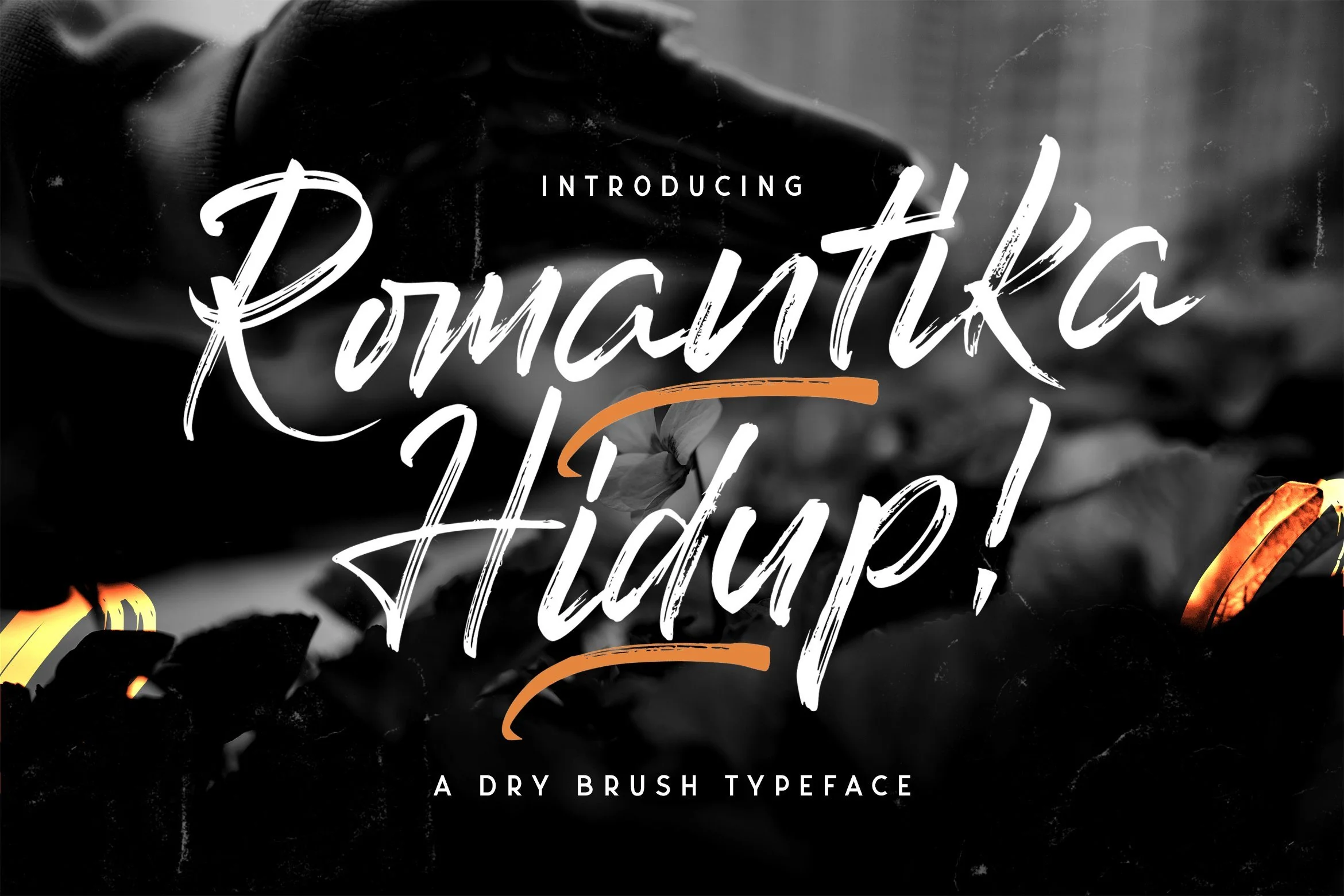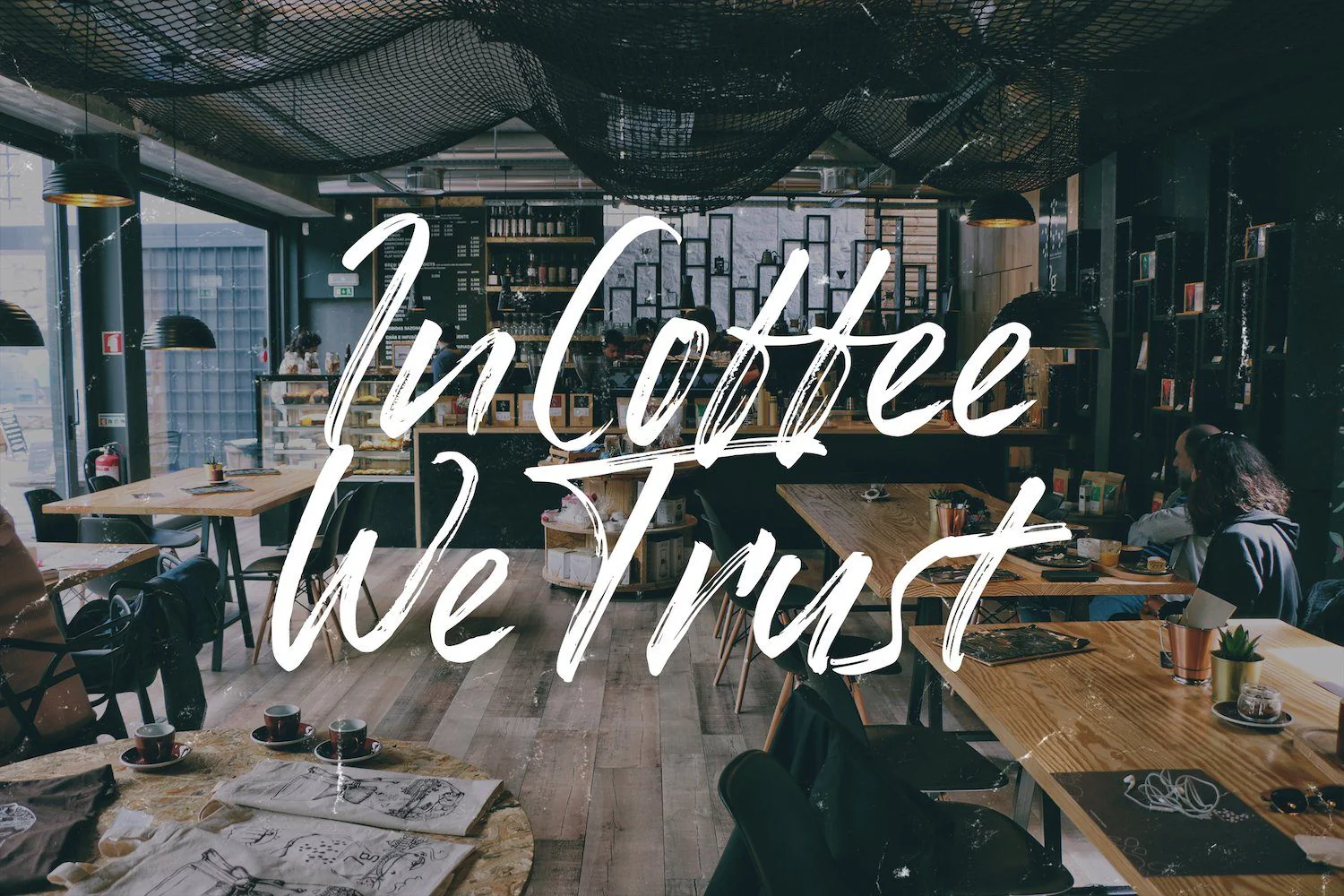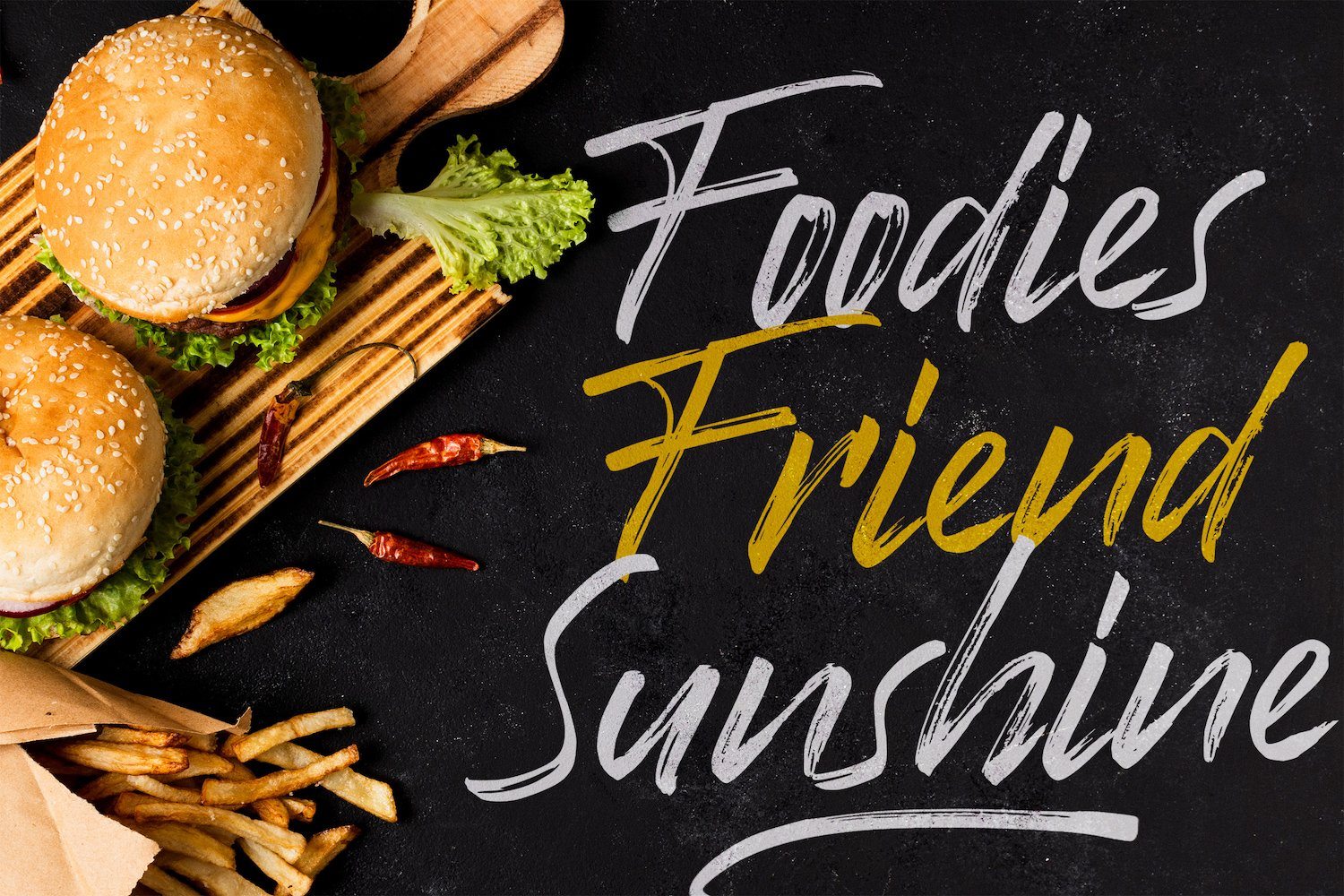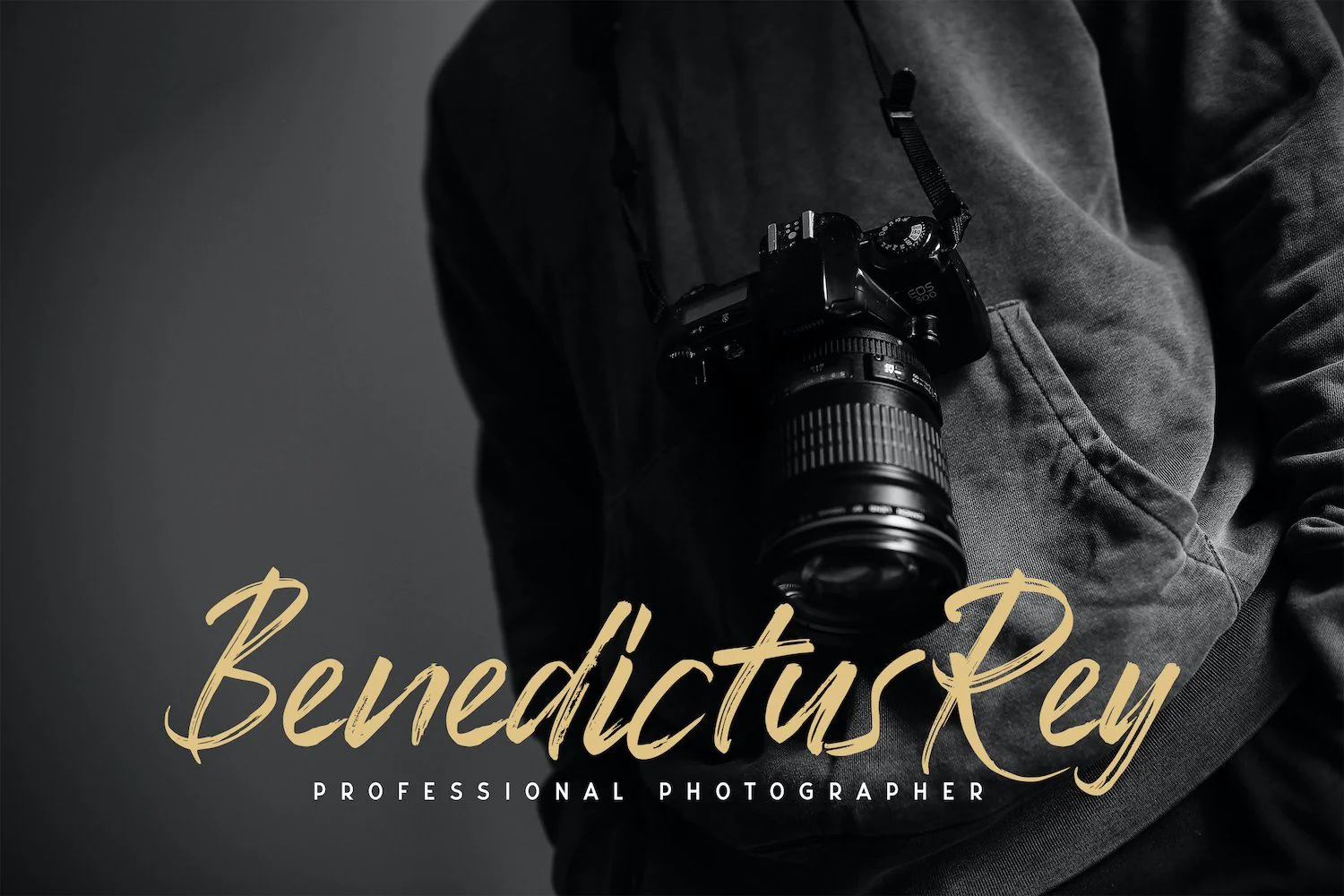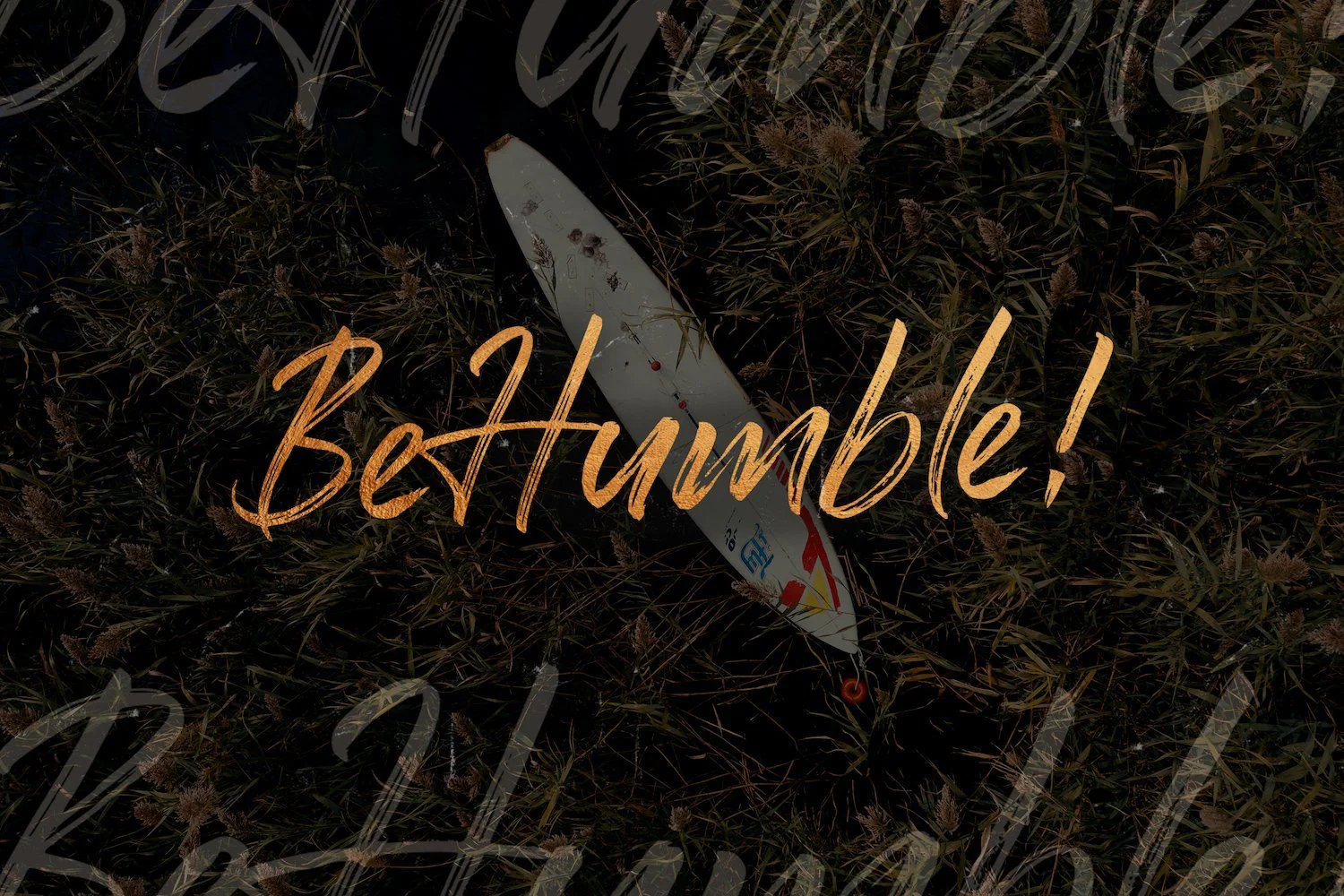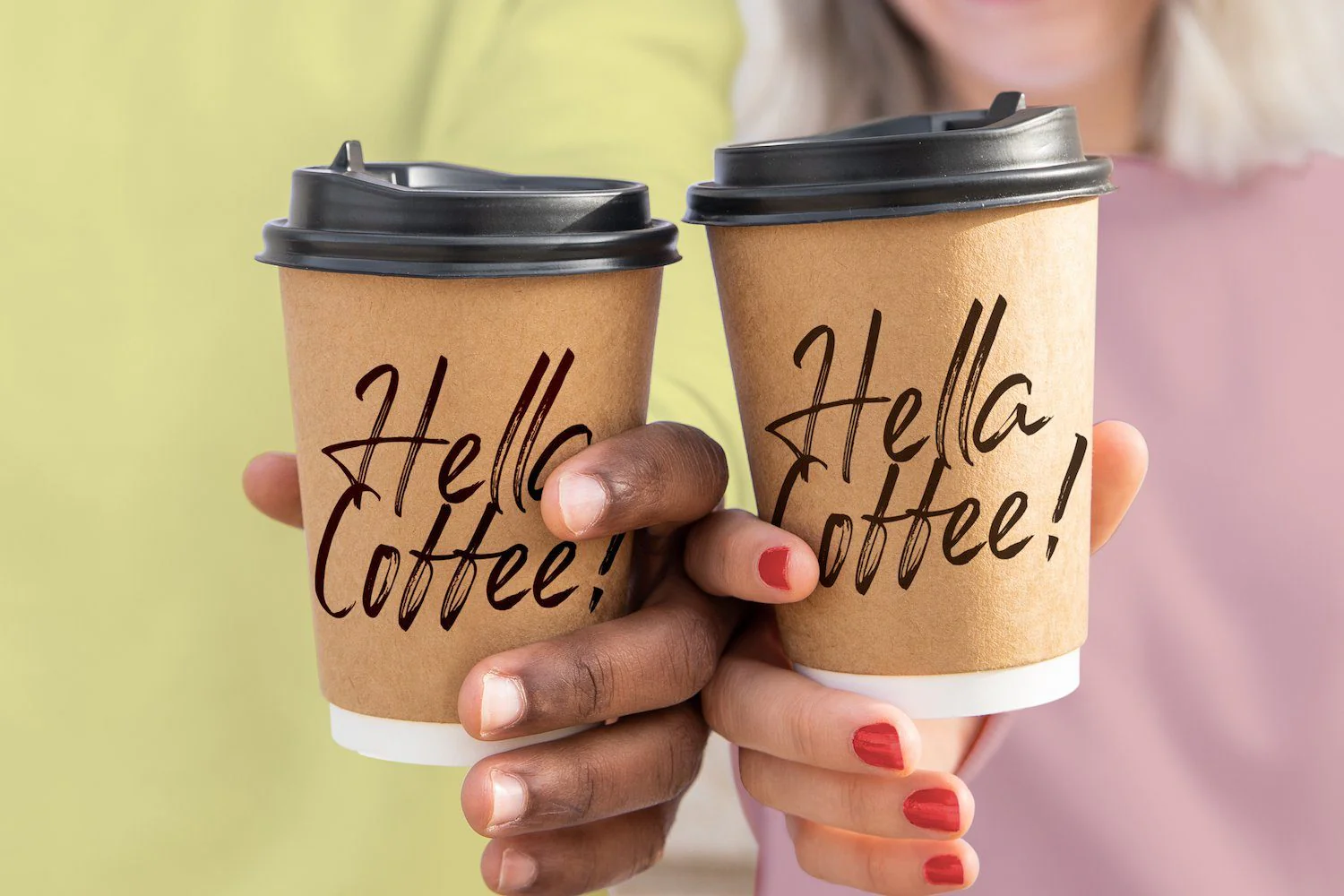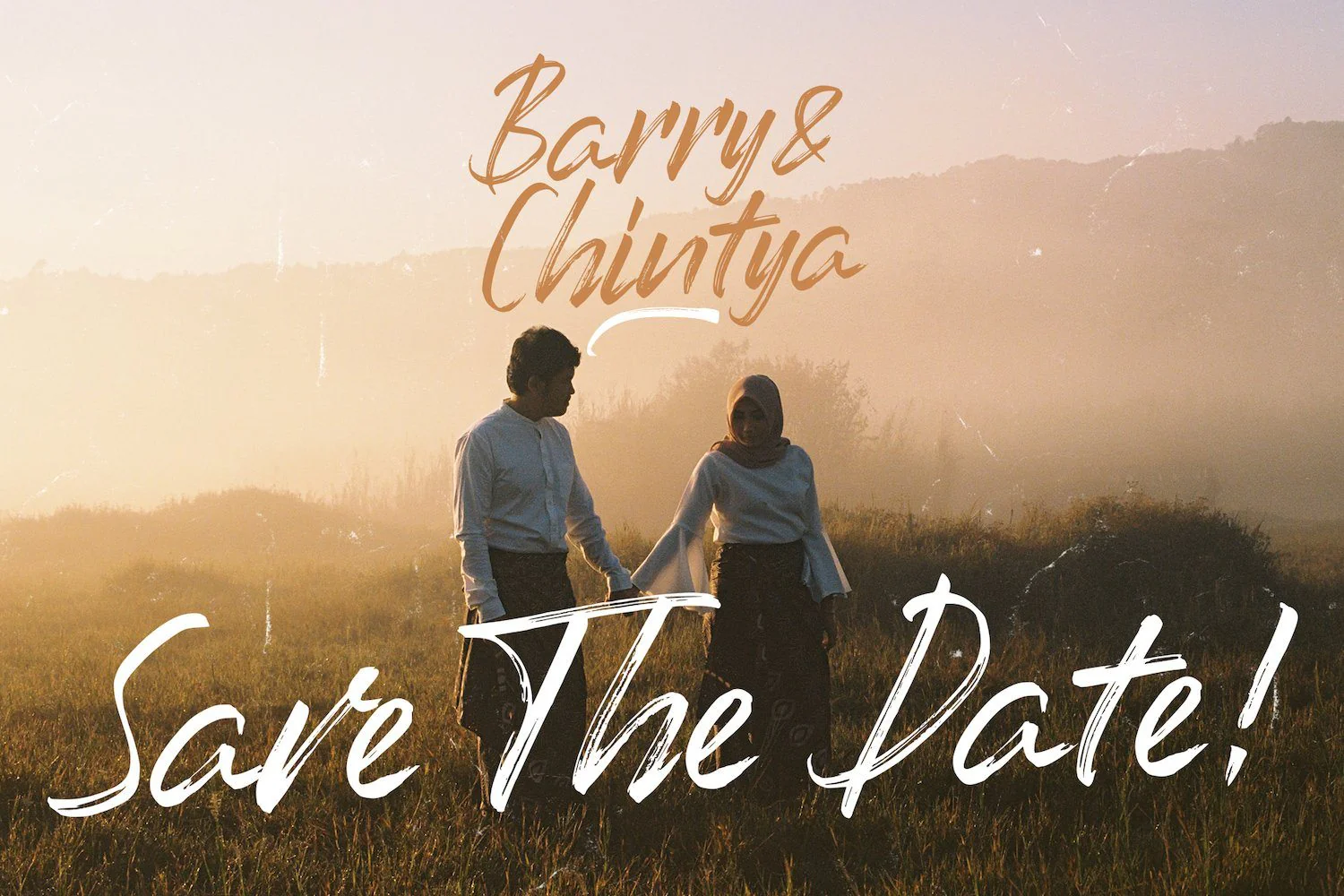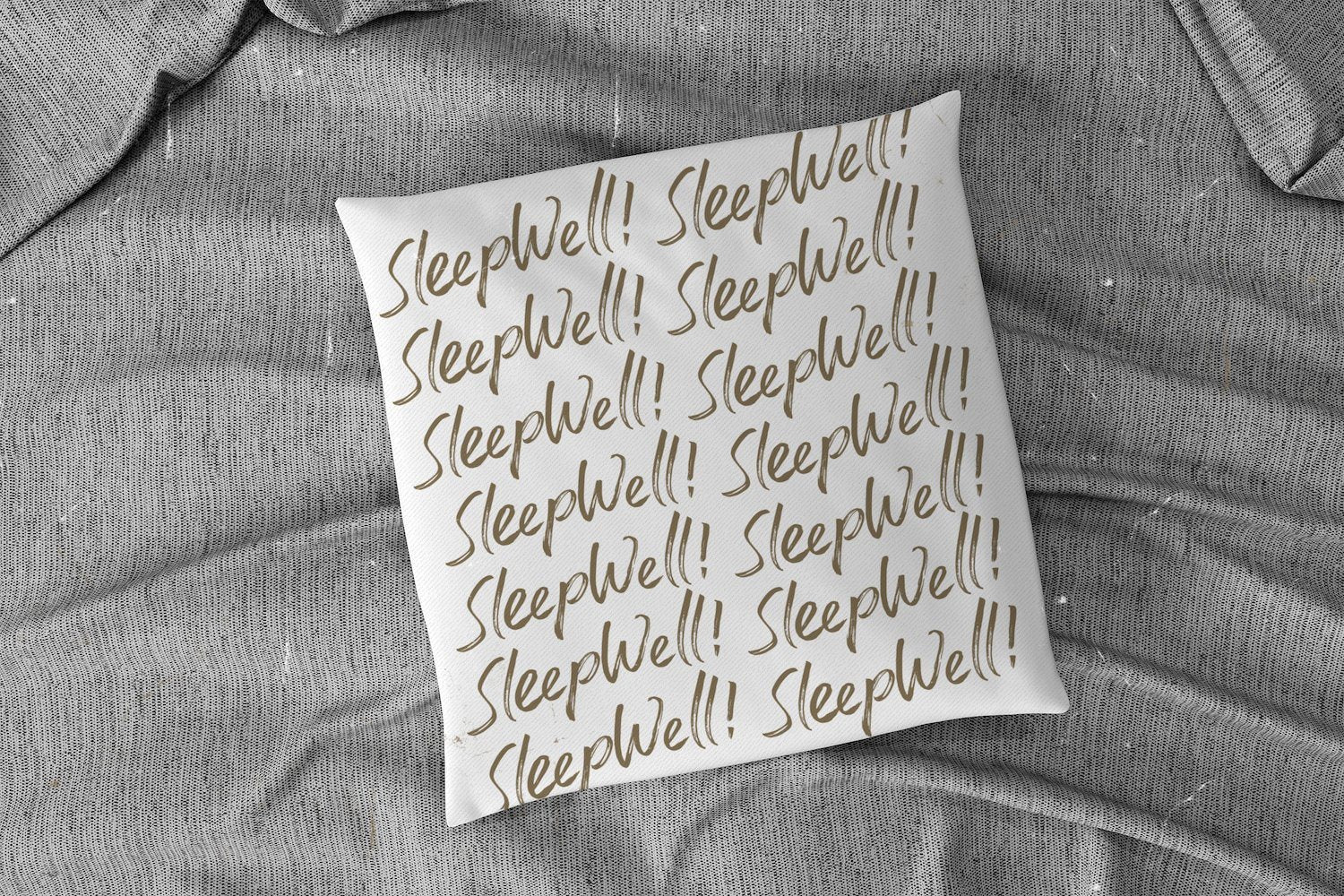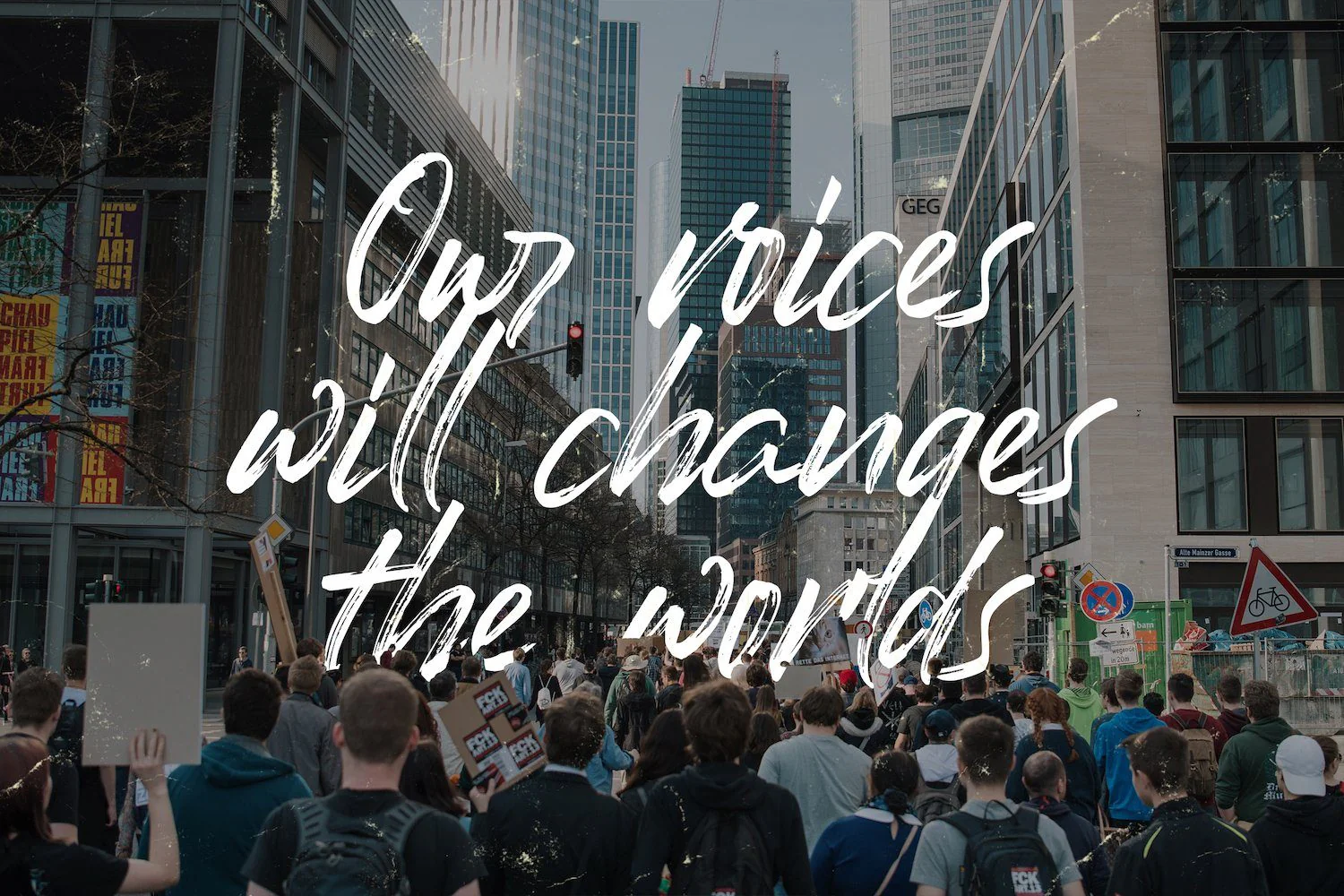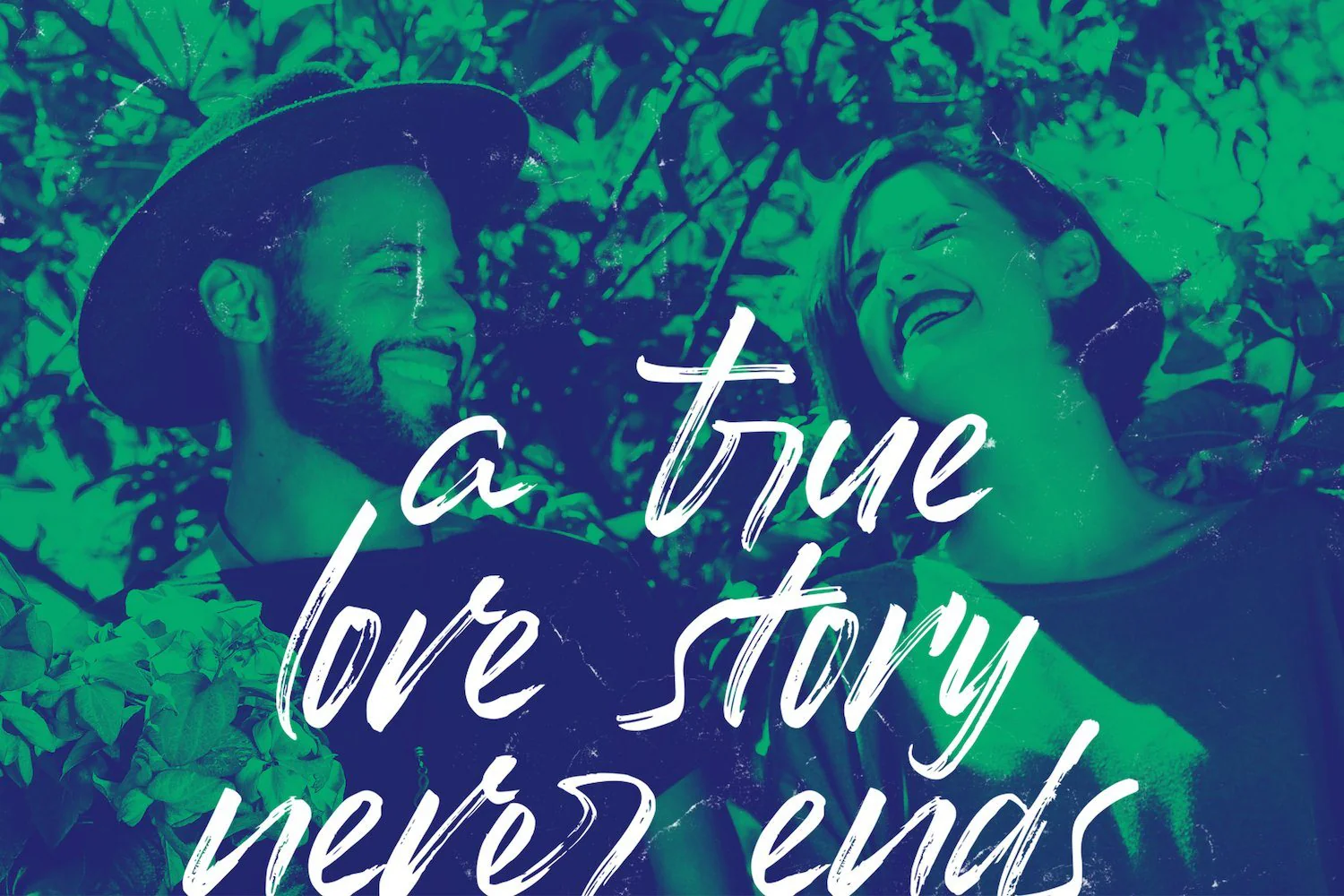
Romantika Hidup - Dry Brush Script Font
Introducing Romantika Hidup - Dry Brush Script Font
Romantika Hidup is a flowing and elegant handwritten font, created with the help of a brush pen. Get inspired by its unique and beautiful style and add it to your favorite designs!
Introducing Romantika Hidup - Dry Brush Script Font
Romantika Hidup is a flowing and elegant handwritten font, created with the help of a brush pen. Get inspired by its unique and beautiful style and add it to your favorite designs!